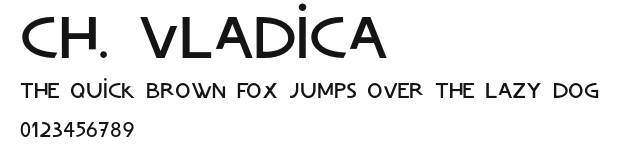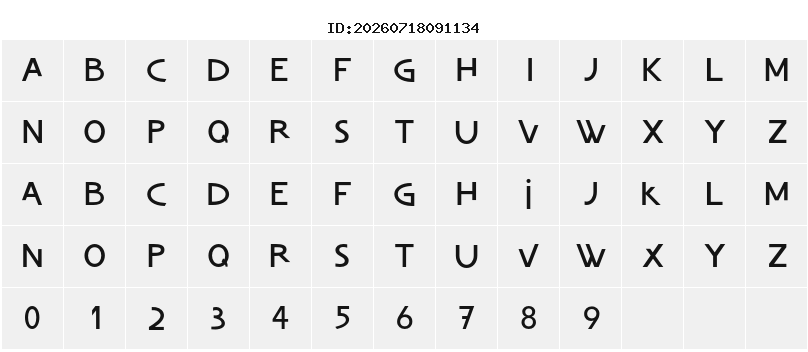
Ch. Vladica Preview
• Font Name: Ch. Vladica
• Designer: Dilara Þebnem Esendemir
• Manufacturer: Dilara Þebnem Esendemir
About Ch. Vladica.otf
Ch. Vladica.otf is a modern, elegant sans-serif font designed for ultimate readability and visual harmony. Perfect for branding, headlines, web design, and print materials.